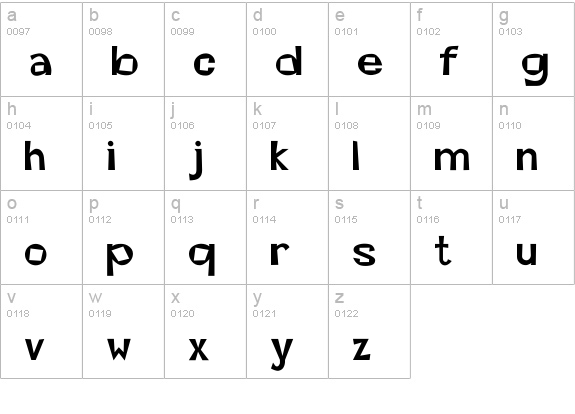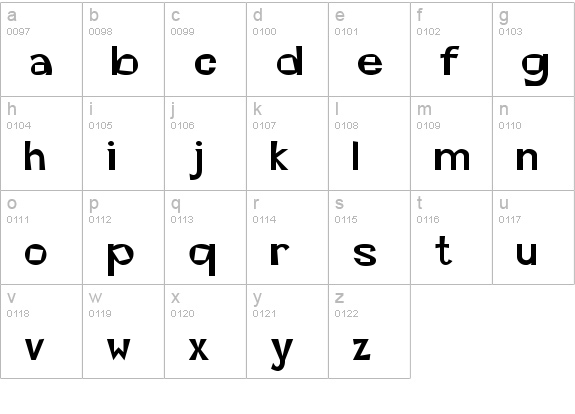
Beatsville Font Details
Introducing Beatsville font, a modern and stylish typeface that brings a touch of urban sophistication to your designs. With its sleek lines and bold letterforms, Beatsville is perfect for creating eye-catching headers, logos, and signage that demand attention. This versatile font exudes a cool and contemporary vibe, making it ideal for a wide range of projects, from branding to editorial design. Whether you're working on a fashion magazine spread or a hipster-inspired poster, Beatsville will add a touch of urban flair to your work. And the best part? Beatsville is completely free to download at FontsMarket.com. So go ahead and give your designs a fresh and modern look with this unique and stylish font. Download Beatsville today and elevate your design projects to a whole new level.